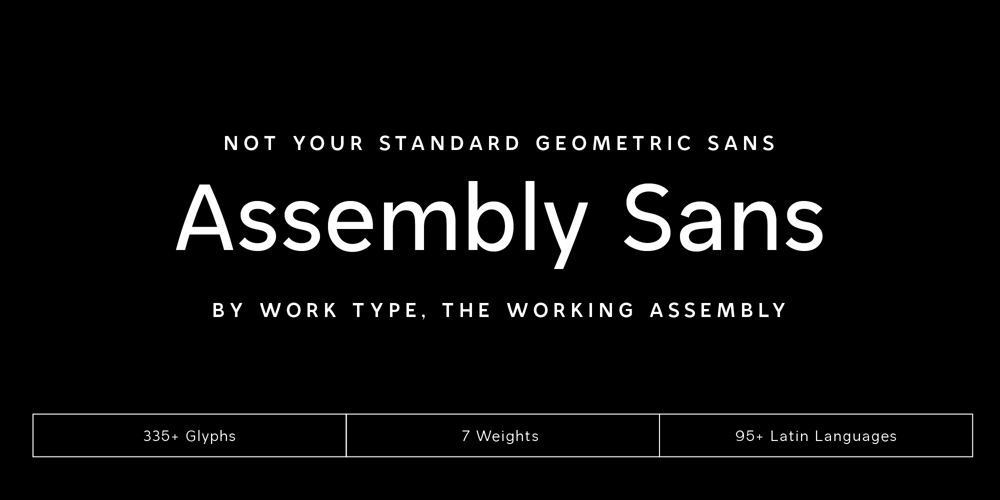
TWA Assembly Sans
TWA Assembly Sans font
TWA Assembly Sans Font Family was designed by Christian Dexter and published by Work Type. TWA Assembly Sans contains 7 styles and family package options. TWA Assembly Sans is not your standard workhorse sans. Although it sports the same geometric shapes, grotesk characteristics, and comes in many weights, its unique qualities and slight diagonal curves give Assembly Sans a friendlier appearance. As the weight increase, the contrast becomes more extreme, adding to its approachability.